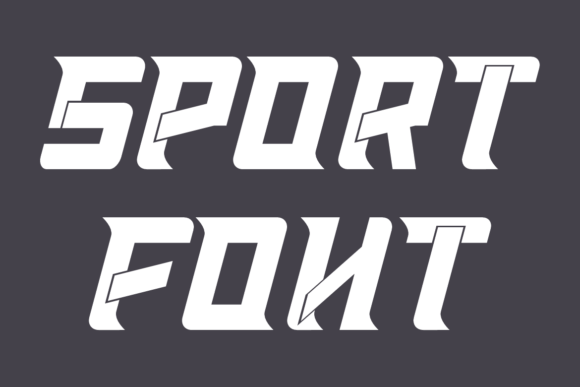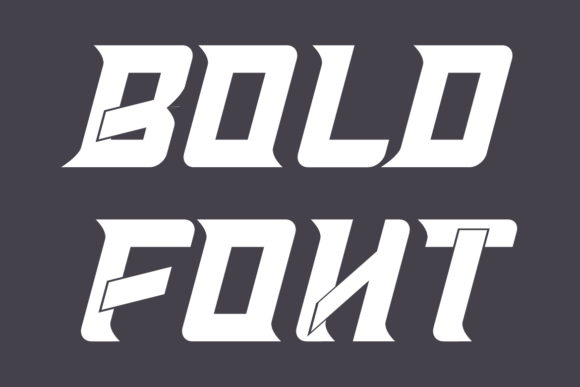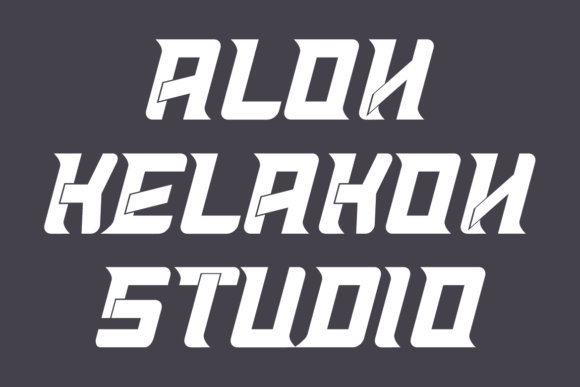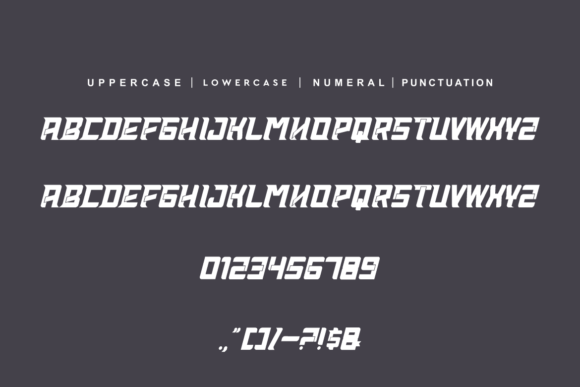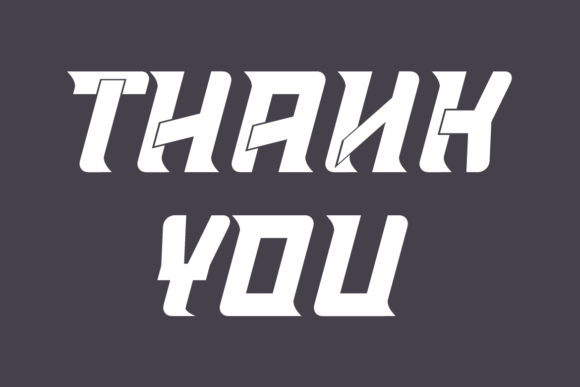
Ghibah Font: Unleash the Power of Bold Typography in Your Designs
In the world of design, typography plays a crucial role in conveying the message and tone of a project. When it comes to creating bold and attention-grabbing designs, the right font can make all the difference. This is where Ghibah Font comes in – a robust and powerful font designed to add a vibrant touch to your sport-inspired designs.
The Power of Ghibah Font
Ghibah Font is specifically crafted to draw attention and highlight any project that requires a bold feel. Its strong and confident appearance makes it perfect for sports-related designs, such as team logos, jerseys, league branding, and more. The font’s bold and vibrant personality is sure to make your designs stand out from the crowd.
While Ghibah Font is ideal for sports design, its versatility knows no bounds. You can use it for a wide range of projects, including:
- Sports design: team logos, jerseys, league branding, and more
- Movie and documentary titles
- Film and video game titles
- Logo design
- Poster and flyer design
- Book covers and magazine headlines
- Title sequences and more
Why Choose Ghibah Font?
So, what makes Ghibah Font a top choice for designers and crafters? Here are just a few reasons:
- Unique and bold appearance: Ghibah Font boasts a distinctive and attention-grabbing design that sets it apart from other fonts.
- High versatility: Use it for a wide range of projects, from sports design to movie titles and more.
- Ease of use: Ghibah Font is easy to read and works well in both digital and print formats.
- Customizable: Experiment with different colors, sizes, and styles to make your designs truly unique.
Tips for Using Ghibah Font
To get the most out of Ghibah Font, here are some expert tips:
- Pair it with contrasting fonts: Combine Ghibah Font with a clean, sans-serif font to create visual interest and hierarchy.
- Experiment with colors: Try out different colors and gradients to add depth and dimension to your designs.
- Use it sparingly: Ghibah Font is bold and attention-grabbing, so use it sparingly to avoid overwhelming your designs.
| Font Name | Ghibah Font |
Key Features of Ghibah Font
| Font Style | Bold, Robust |
| Font Family | Ghibah |
| Best for | Sports design, team logos, jerseys, league branding, movie titles, and more |